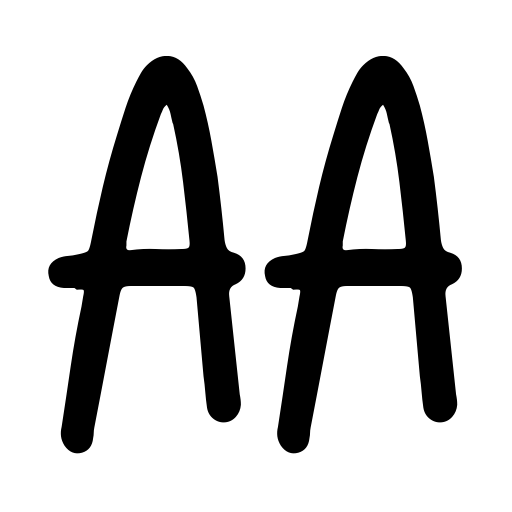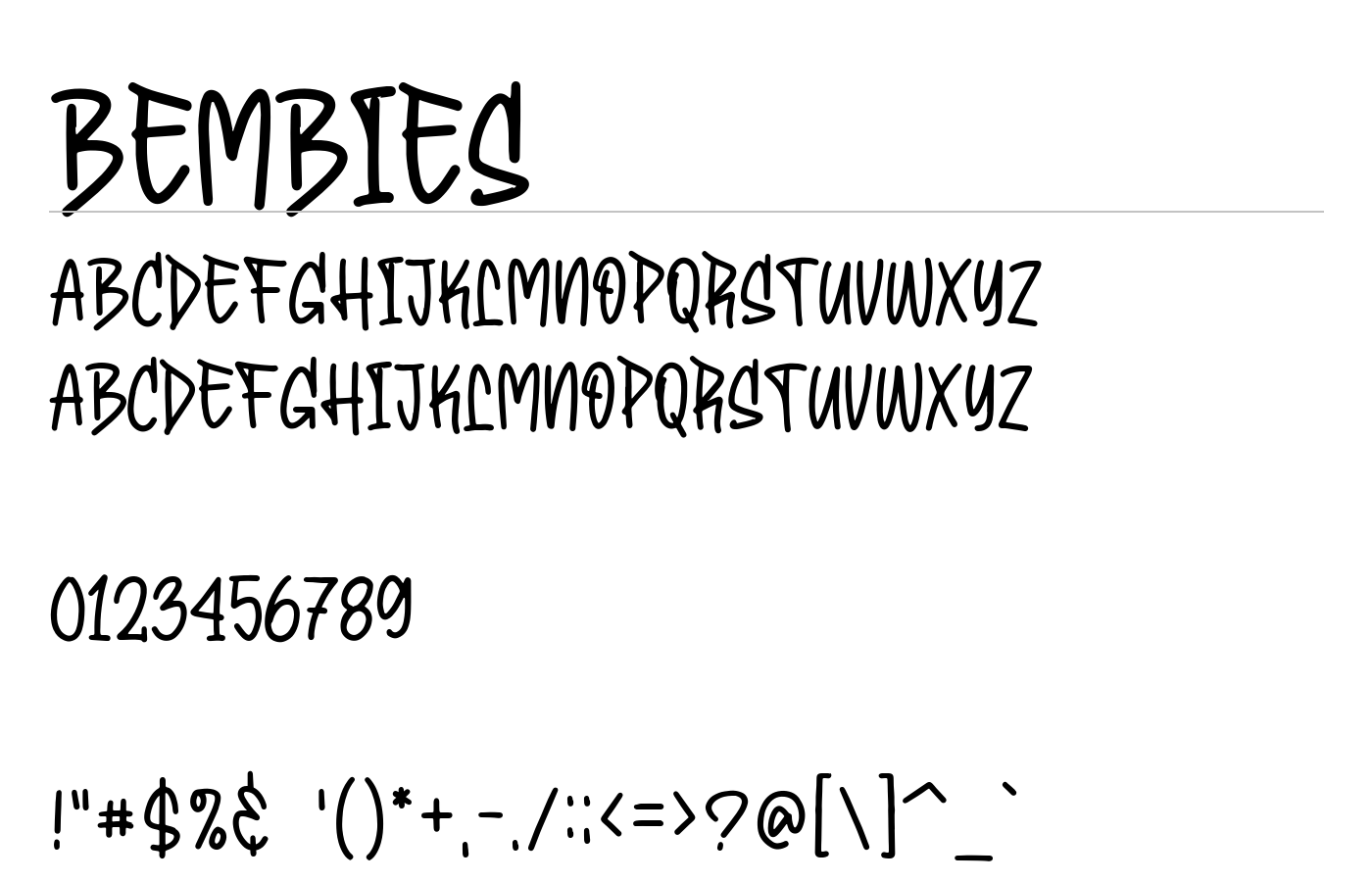
Bembies is a quirky, handwritten-style sans serif font that combines playful charm with a casual, artistic flair. Its tall, narrow letterforms with varying stroke widths create a lively, dynamic feel perfect for creative projects, informal branding, and youth-focused designs. This font works well in headlines, logos, and packaging where a fun, approachable, and unique personality is desired.
Bembies Font
About Bembies Font